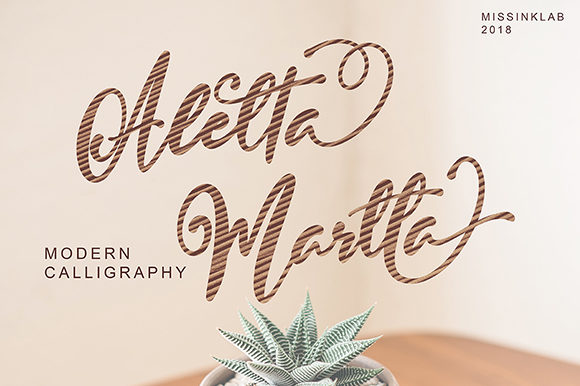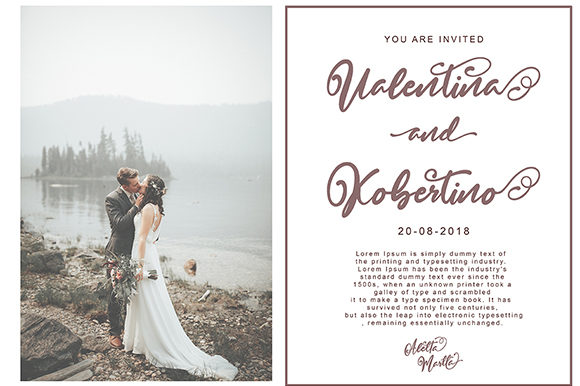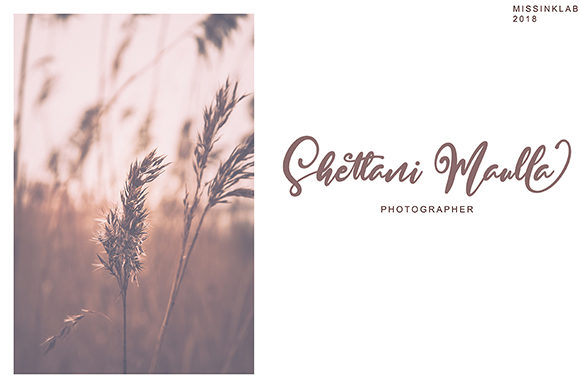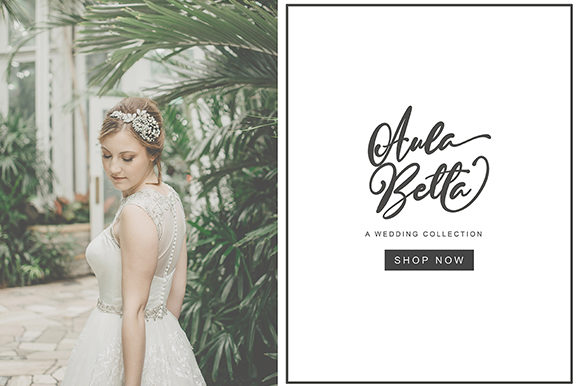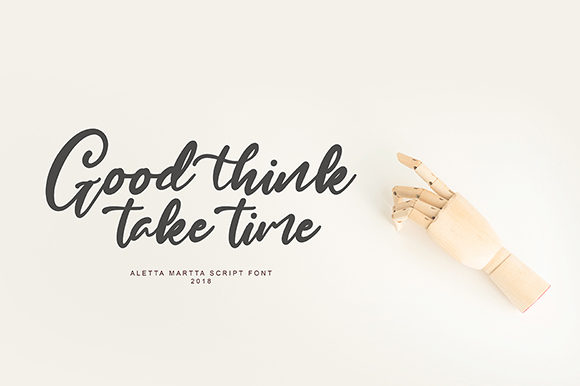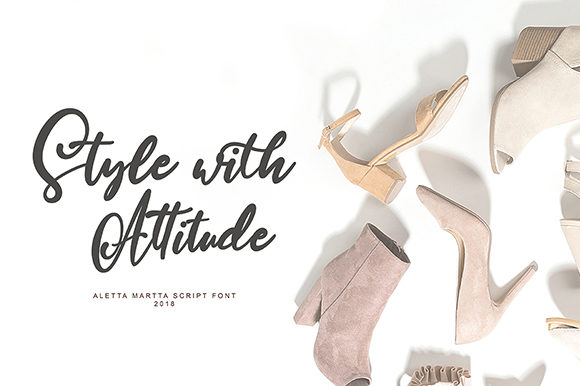
Aletta Martta Font
About Aletta Martta Font
Aletta Martta is a fun and lovely handwritten font with incredible details. Get inspired by its romantic and delicate fell!